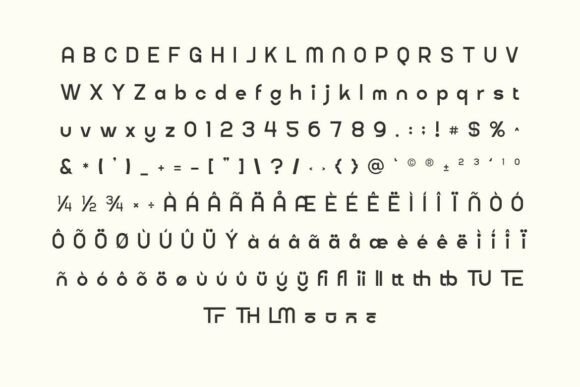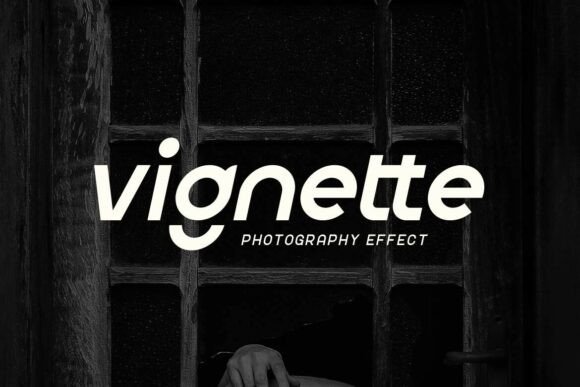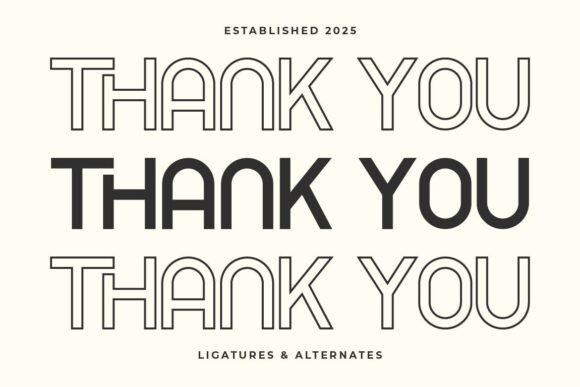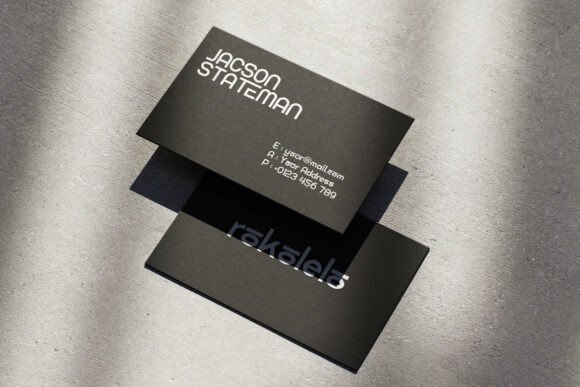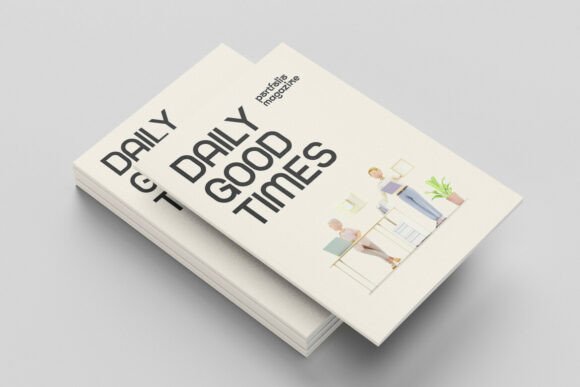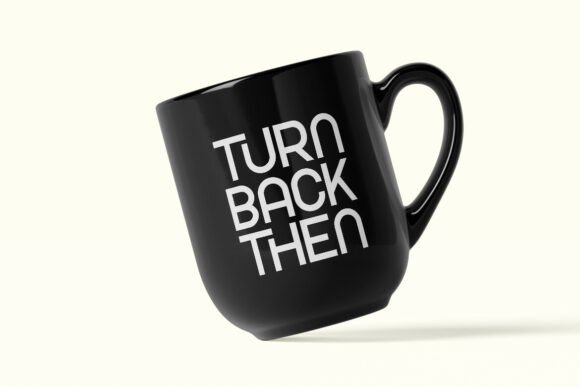
Introduction to Rogoro Font
Rogoro is a sleek and versatile sans-serif font designed with modern branding in mind.
Featuring sharp geometry, clean proportions, and a minimal yet distinctive style, Rogoro is perfect for creating bold logos, professional brand identities, product packaging, website headers, and social media graphics .
Key Features of Rogoro Font
Why Choose Rogoro Font?
Rogoro Font offers exceptional quality and versatility, making it a valuable addition to your design toolkit. Whether you’re creating for personal projects or commercial use, Rogoro Font delivers professional results.